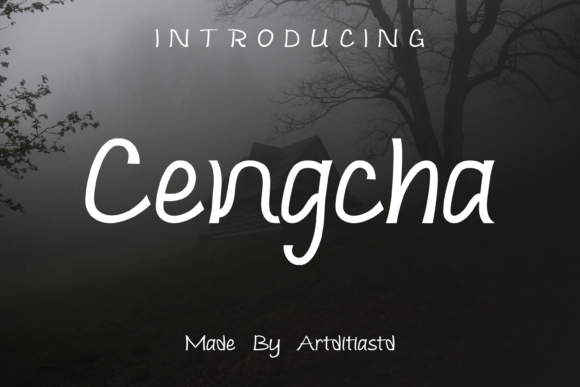
Cengcha Font: The Sweet and Friendly Handwritten Font
In the world of typography, fonts play a crucial role in conveying the tone and personality of a design. Among the numerous fonts available, Cengcha Font stands out for its sweet and friendly handwritten style. This unique font has gained popularity among designers and artists for its natural and distinctive look, making it an excellent choice for a wide range of design projects.
What is Cengcha Font?
Cengcha Font is a beautiful, handwritten font that exudes warmth and friendliness. Its natural and unique style makes it incredibly fitting for a large pool of designs, from creative projects to commercial branding. The font’s distinctive characteristics, such as its rounded edges and flowing lines, give it a personal touch that sets it apart from other fonts.
Features and Benefits of Cengcha Font
Cengcha Font offers several features and benefits that make it an attractive choice for designers:
- Unique and distinctive style: Cengcha Font has a one-of-a-kind look that adds a personal touch to any design.
- Sweet and friendly tone: The font’s warm and inviting tone makes it perfect for designs that require a friendly and approachable feel.
- Natural and flowing lines: The font’s natural, handwritten lines give it a organic and authentic look.
- Versatile: Cengcha Font can be used for a wide range of design projects, from branding and advertising to packaging and digital media.
The Many Uses of Cengcha Font
Cengcha Font’s versatility makes it suitable for various design projects, including:
- Branding and logos: The font’s unique style makes it an excellent choice for creating memorable and distinctive brand identities.
- Advertising and marketing materials: Cengcha Font’s friendly tone and natural look make it perfect for creating engaging and effective advertising materials.
- Packaging design: The font’s distinctive style adds a personal touch to product packaging, making it stand out on store shelves.
- Digital media: Cengcha Font can be used for digital media, such as social media graphics, blog posts, and website headers.
Tips for Using Cengcha Font
To get the most out of Cengcha Font, consider the following tips:
- Use it as a headline font: Cengcha Font’s unique style makes it perfect for headlines and titles.
- Pair it with other fonts: Experiment with pairing Cengcha Font with other fonts to create a unique and visually appealing design.
- Adjust font size and color: Adjust the font size and color to suit your design needs and ensure optimal readability.
In conclusion, Cengcha Font is a sweet and friendly handwritten font that offers a unique and distinctive style. Its natural and flowing lines, combined with its warm and inviting tone, make it an excellent choice for a wide range of design projects. With its versatility and flexibility, Cengcha Font is sure to become a favorite among designers and artists.